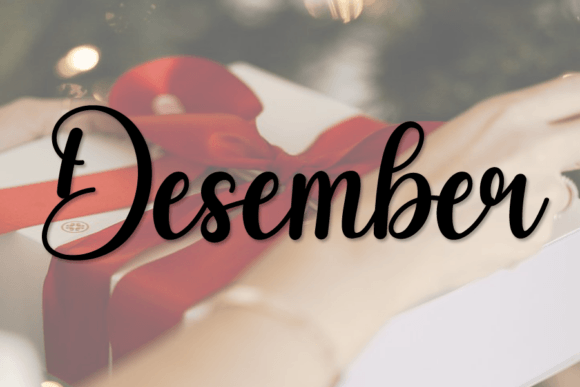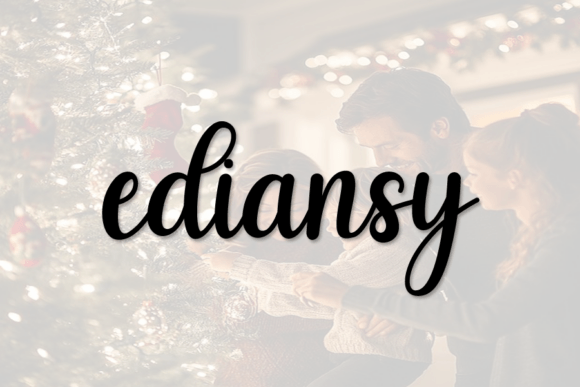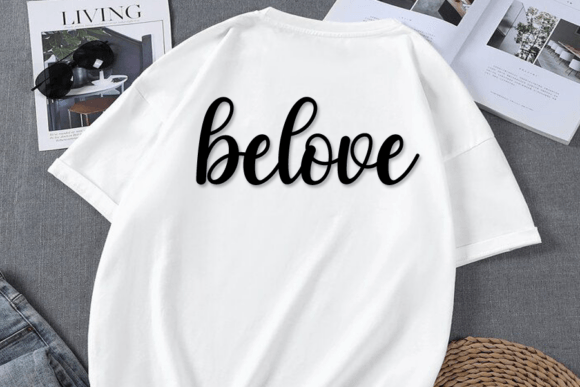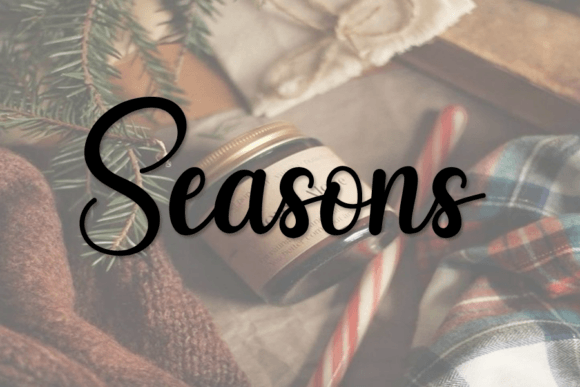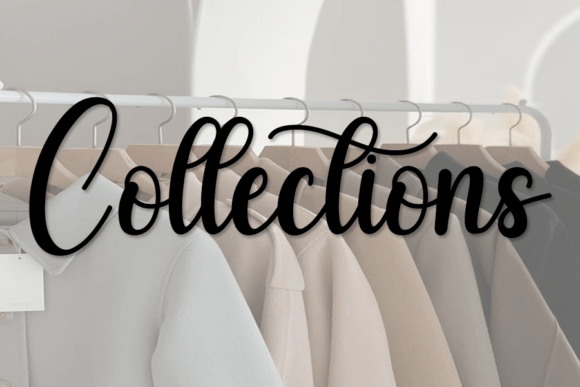
Unlocking the Magic of Creativity: Introducing Children Font
Have you ever been in a design session, staring at a blank canvas, trying to come up with the perfect font to capture the essence of your idea? That’s where the magic happens – and for many designers, that magic starts with the Children Font. This fun and quirky font is more than just a typeface; it’s a key to unlocking your creativity and elevating any project to the next level.
Whether you’re working on a corporate identity, a music album cover, or a children’s book, the Children Font is an incredible asset to have in your library. Its versatility and charm make it a valuable addition to any designer’s toolkit, and its potential to bring a smile to your audience’s face is undeniable.
Key Features of “Children Font”
- Unique Characteristics: Features rounded edges, smooth curves, and child-like letterforms, making it ideal for children’s books, educational materials, and family-friendly designs.
Children Font Review
At first glance, the Children Font catches the eye with its playful and whimsical vibe. ✨ The font’s rounded shapes and soft edges evoke a sense of childlike wonder, making it perfect for projects targeting a younger audience. ✨ The font’s variety of weights and styles also allows for a range of applications, from headlines to body text.
However, there are some limitations to consider. ⚠️ The font’s design may come across as too childish for certain projects, potentially undermining the intended tone or message. ⚠️ Additionally, the font’s irregularities can make it difficult to read at smaller font sizes, which may be a concern for projects requiring clear and concise communication.
Design Considerations
- Target Audience: Young children, family-friendly projects, or educational materials
- Project Suitability: Headlines, titles, and decorative text; avoid for body text or critical information
- Font Size: Use at larger font sizes to maintain readability
Overall, the Children Font is a charming and eye-catching choice for the right projects. While it may not be suitable for every design task, its unique personality and versatility make it a valuable addition to any designer’s toolkit.
Tips for Getting the Most Out of it
For optimal results, use the “Children Font” in conjunction with playful colors and graphics to create a whimsical atmosphere.
Consider pairing the font with bold, cursive, or italic fonts to add visual interest and create a sense of hierarchy.
The “Children Font” is ideal for:
- Children’s educational materials (e.g. worksheets, activity sheets, etc.).
- Party invitations and decorations.
- Children’s book covers and illustrations.